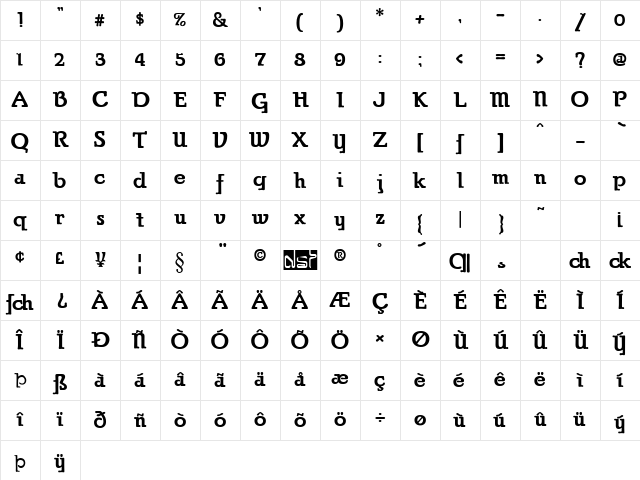
Parsons Heavy Free Font
Parsons Heavy
Parsons Family
Design Context for Parsons
Parsons is a composed and adaptable typeface that performs quietly and consistently across a wide range of design contexts.